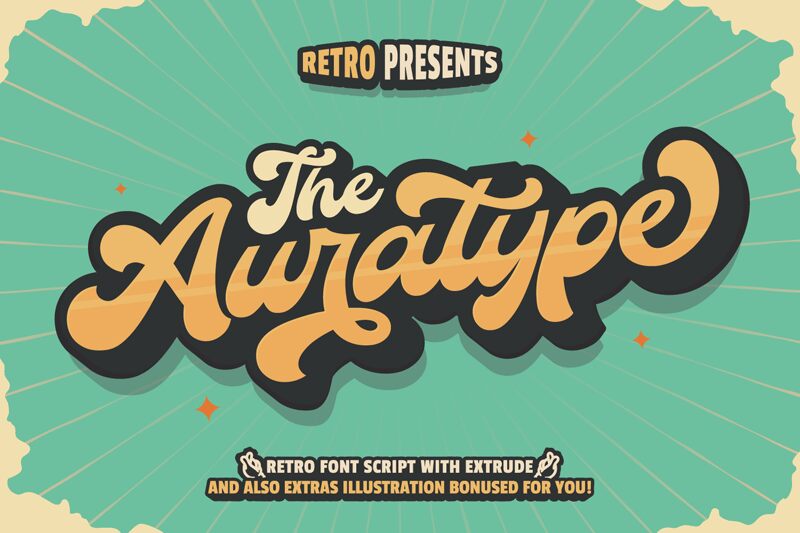
The Auratype Extrude is a stunning retro-script typeface designed by Wahyu Dwi Cahyo of the Auratype Font Foundry. It has an extra-bold style that lends itself perfectly to creative projects with a bold, vintage look. From logos to posters and packaging, The Auratype Extrude is sure to make your designs stand out with its classic yet modern feel.